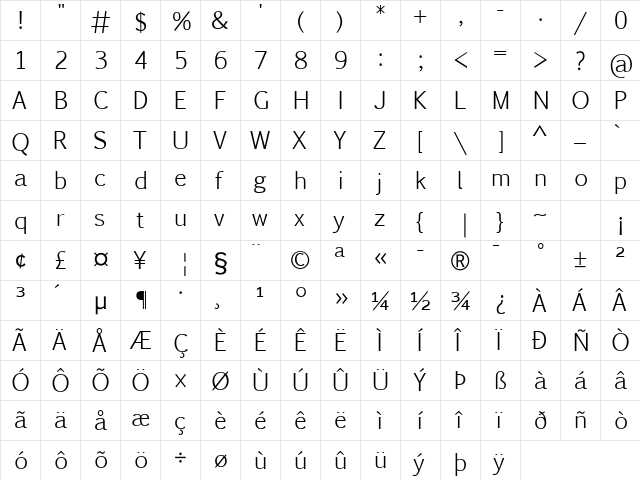
Pigiarniq Light Regular
| Designer | Wm. Ross Mills |
Design Context for Pigiarniq Light Typeface
Pigiarniq Light offers clean, dependable letterforms without strong stylistic allegiance, making it a practical choice for designers who need flexibility. Its slender proportions lend an understated elegance to any composition.
Pro Tip: Pair Pigiarniq Light with a font of contrasting weight or personality to build a more expressive typographic hierarchy.